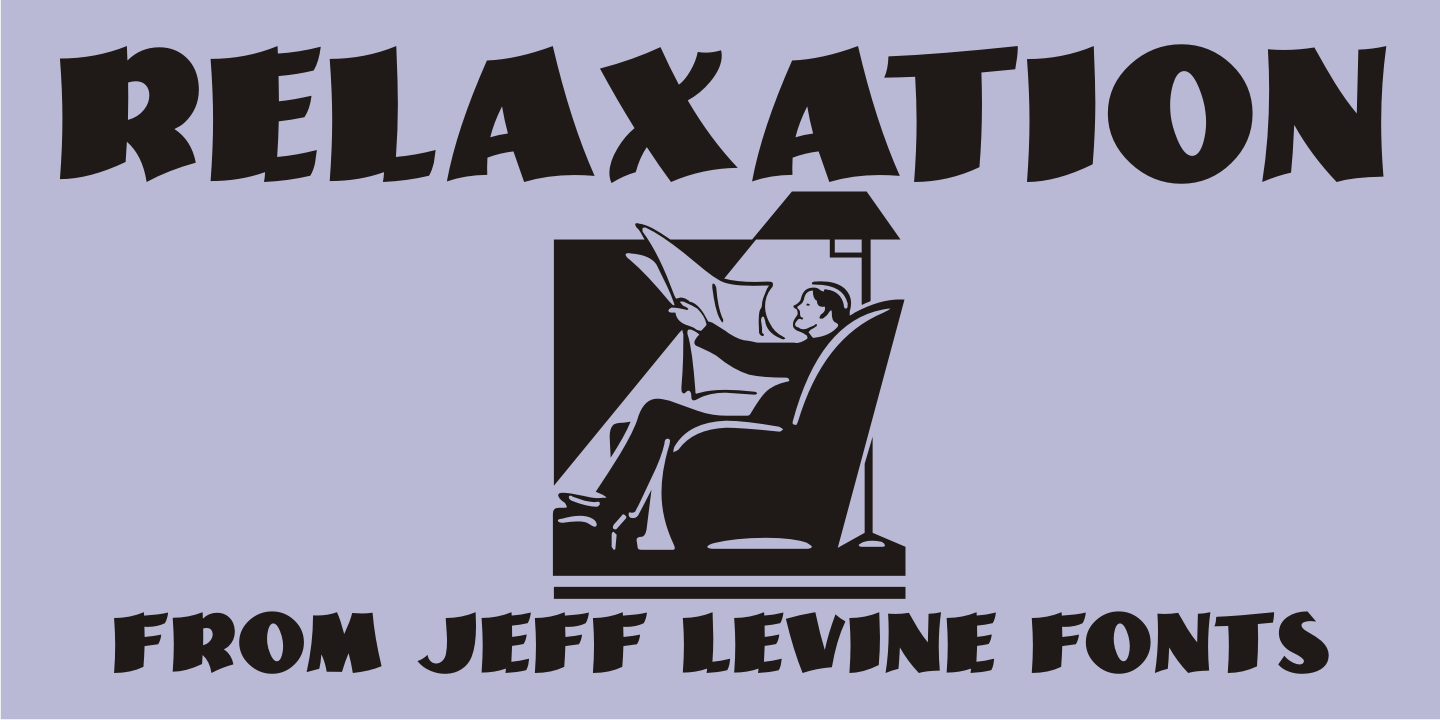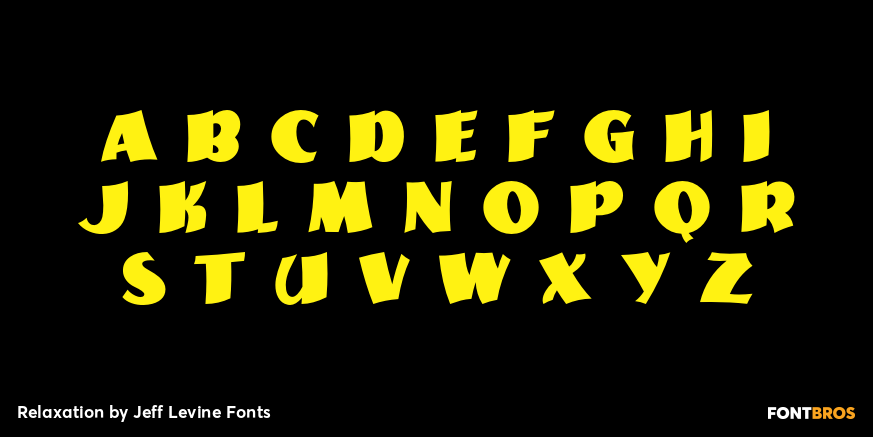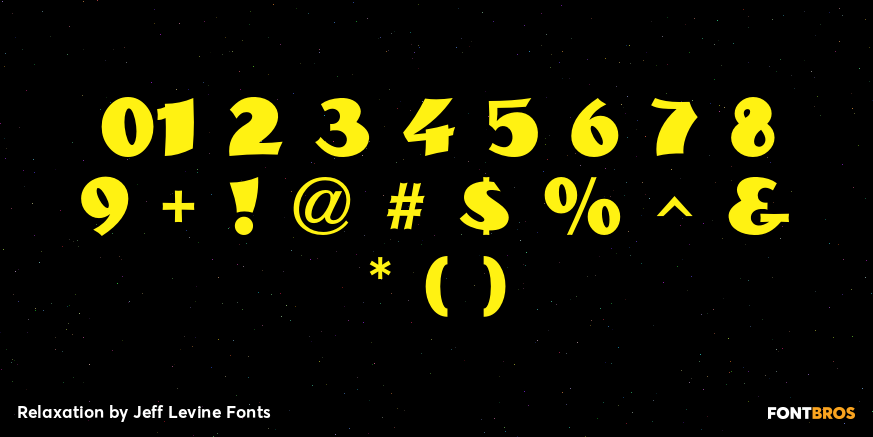
Relaxation
Amongst the pages of a 1946 foreign publication entitled '100 Alphabets Publicitaires' ('100 Advertising Alphabets') is the casual brush stroke sans that was the design basis for Relaxation JNL.
Relaxation by Jeff Levine Fonts